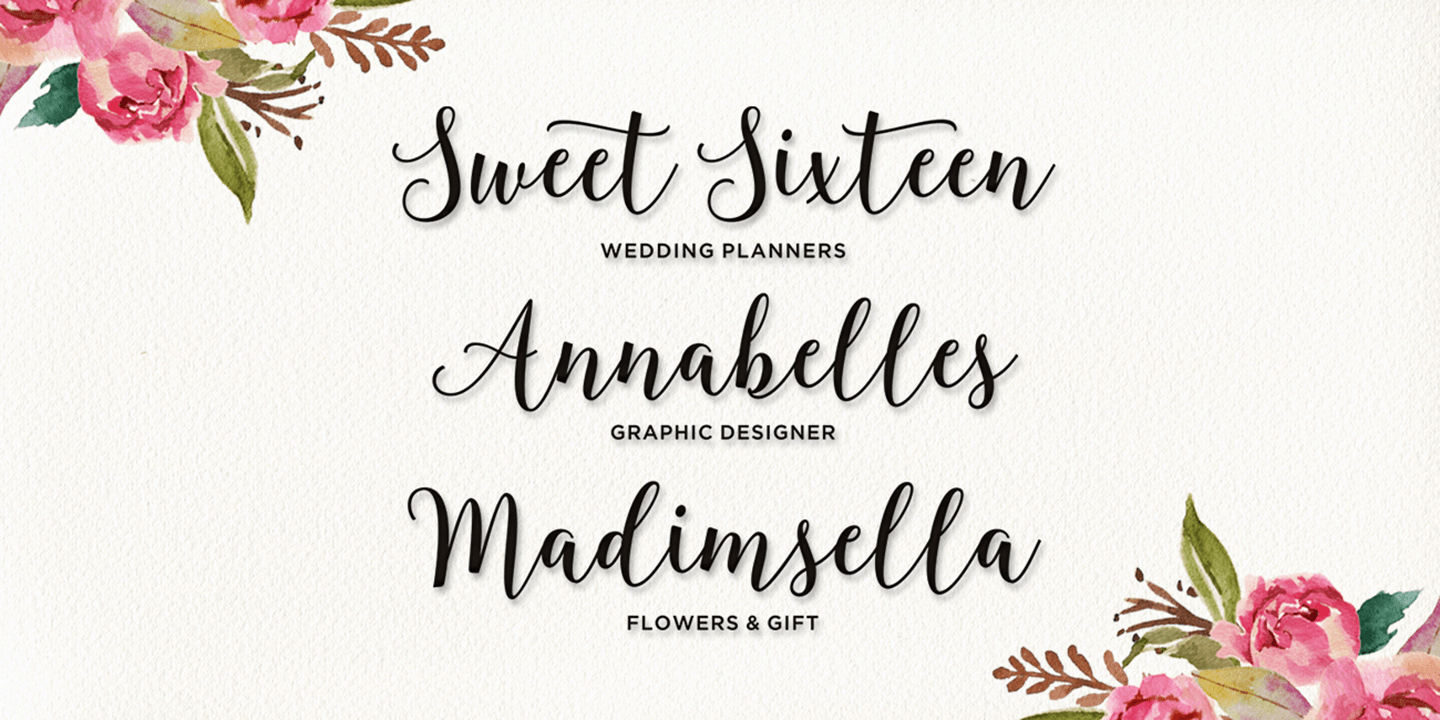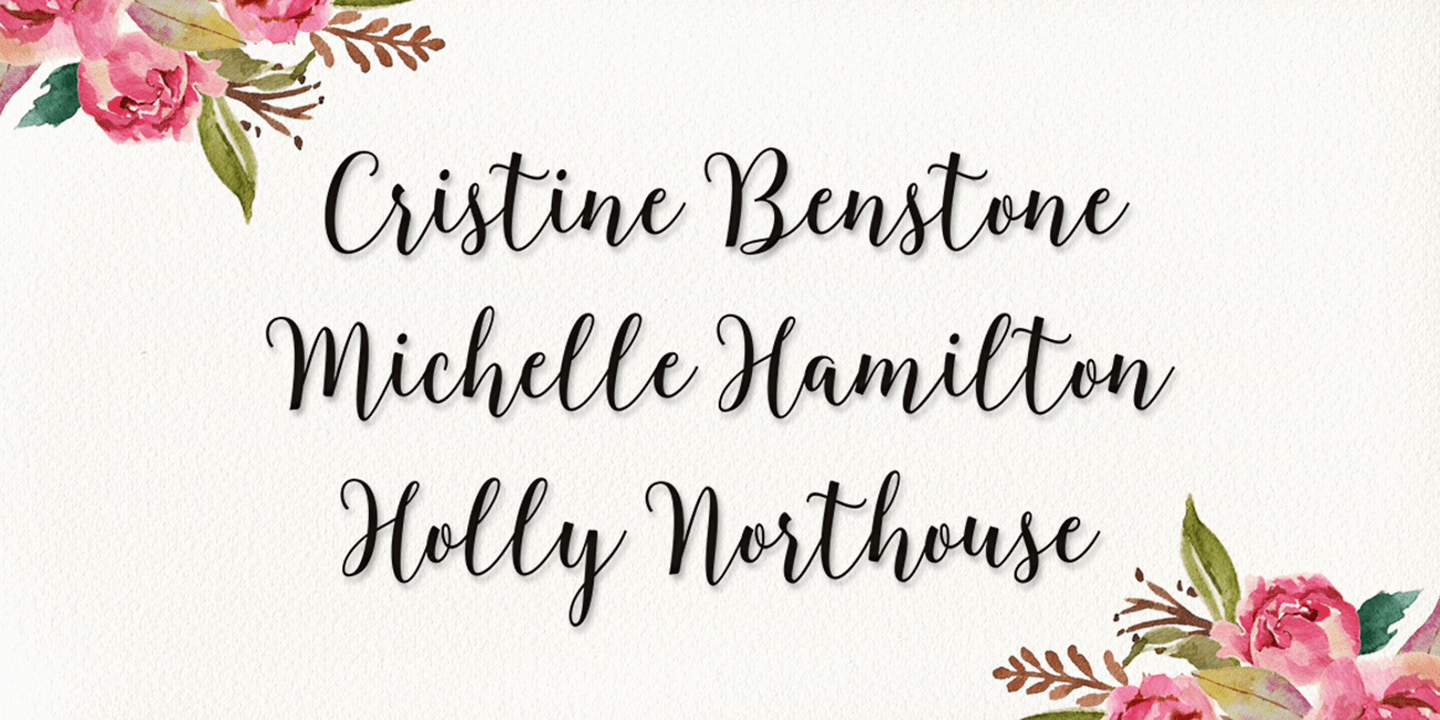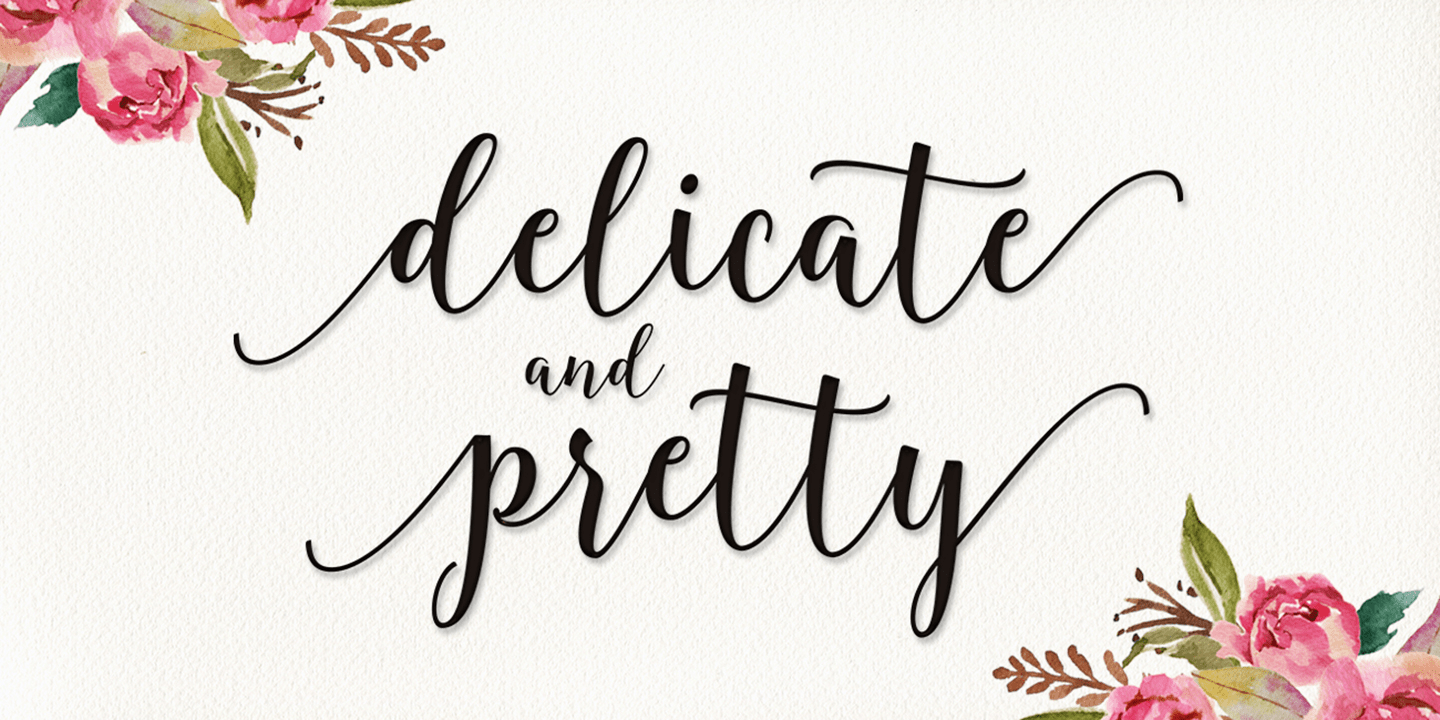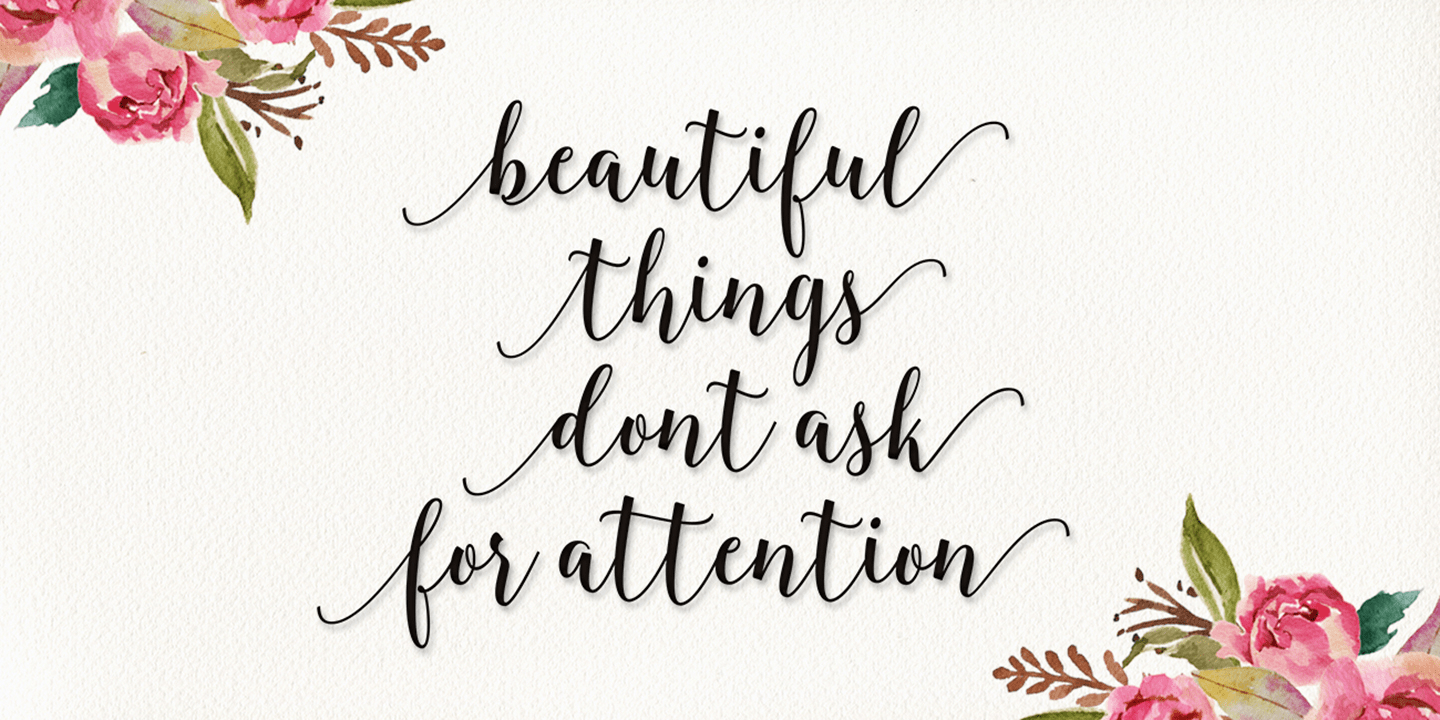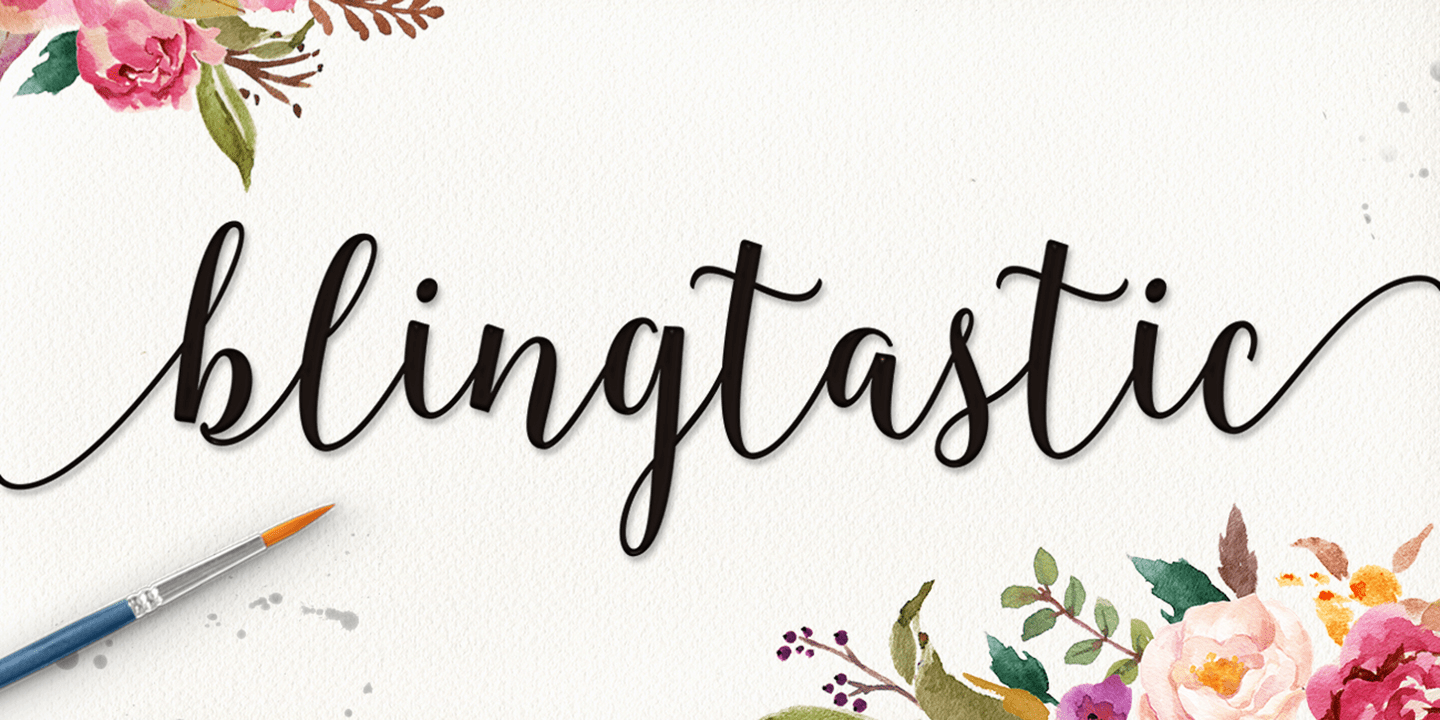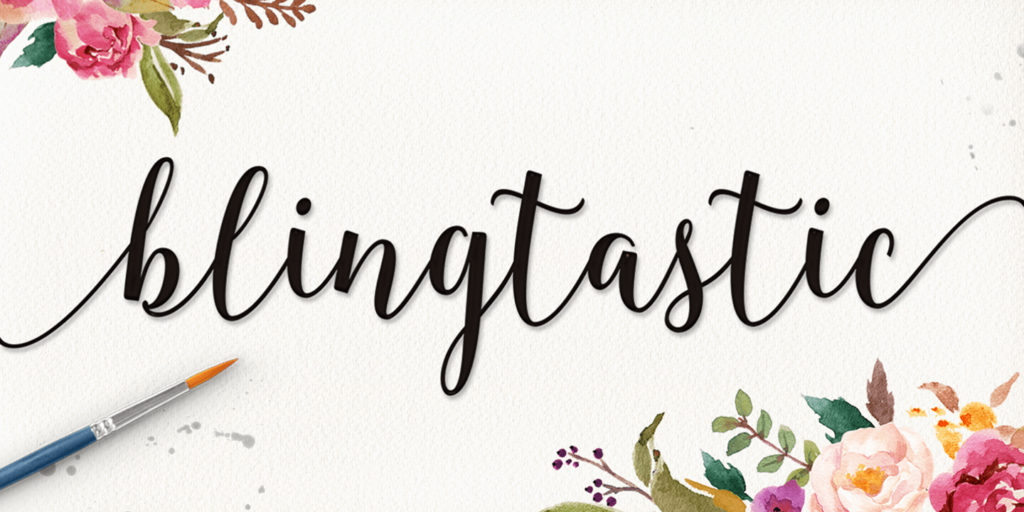
Blingtastic Script is a modern & clean calligraphy script. Its characters dance along the baseline while it still has an elegant touch. It can be used for various purposes such as logos, wedding invitations, headings, t-shirt, letterheads, signage, labels,…